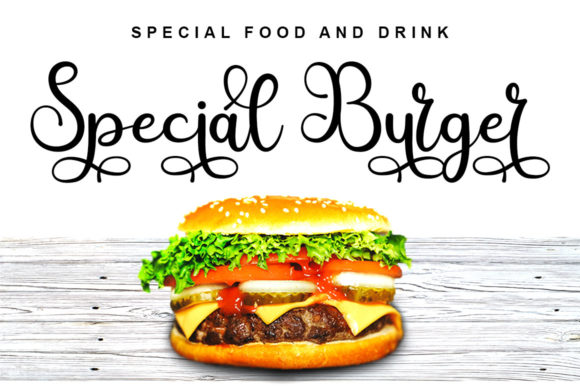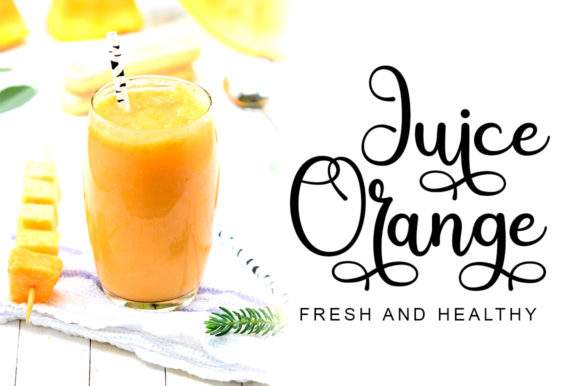
Delicious Bread Font
db-ku.com - Script & Handwritten -- Delicious Bread is an elegant and modern script font. This font is made with very smooth and neat kerning and has a very attractive font character. Delicious Bread is PUA encoded which means you can access all of the glyphs and swashes with ease!